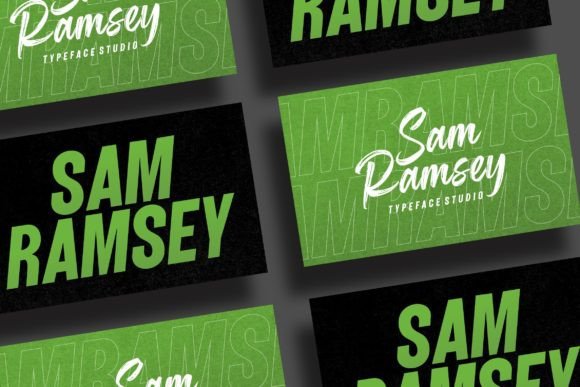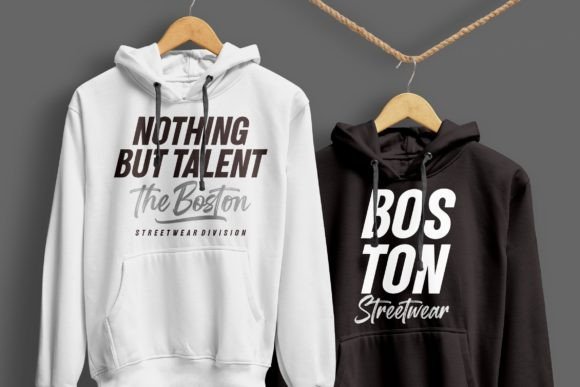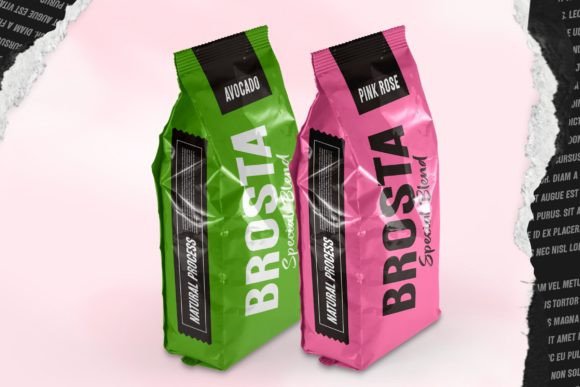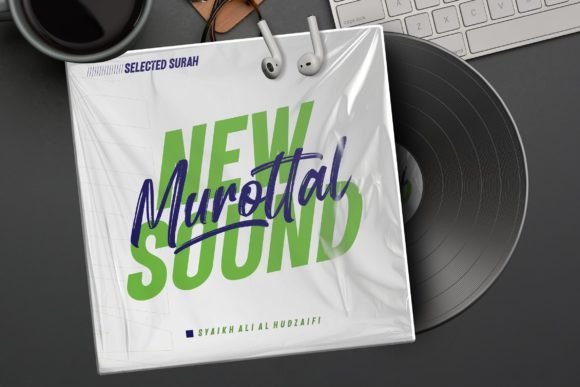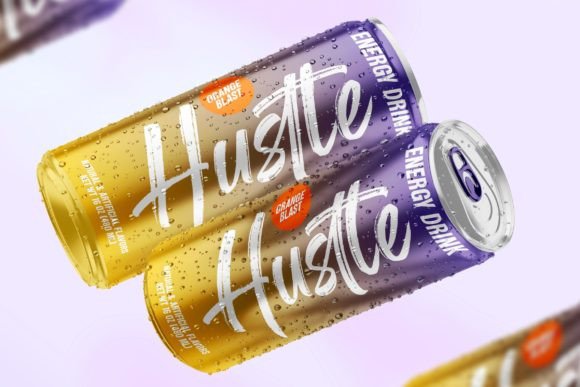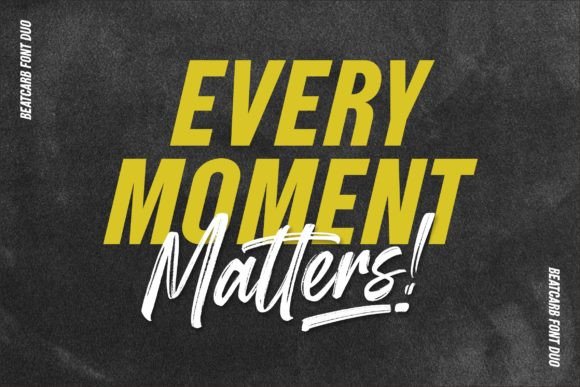
Introducing Beatcarb Font: The Ultimate Urban-Inspired Typeface
In the world of typography, a font can make all the difference in the success of a design project. With the rise of urban-inspired aesthetics and contemporary trends, designers are constantly on the lookout for typefaces that can add a touch of authenticity and style to their creations. This is where Beatcarb Font comes in – a handwriting brush effect and sans typeface that is poised to revolutionize the way you approach your next design project.
What is Beatcarb Font?
Beatcarb Font is a unique and versatile typeface that seamlessly blends the organic feel of handwriting with the modernity of sans-serif fonts. Its authentic, urban-inspired design makes it an ideal choice for designers and crafters looking to add a touch of edginess to their work. Whether you’re creating logos, branding materials, or social media graphics, Beatcarb Font offers a wide range of possibilities.
Key Features of Beatcarb Font
- Handwriting Brush Effect: Beatcarb Font boasts a beautiful handwriting brush effect that adds a personal touch to your designs. The font’s strokes are smooth and fluid, giving your text a natural, hand-crafted feel.
- Sans Typeface: The sans-serif aspect of Beatcarb Font makes it perfect for designs that require a clean and modern look. The font’s sans-serif lines are crisp and clear, ensuring that your text remains legible even at smaller sizes.
- Urban-Inspired Design: Beatcarb Font’s design is heavily influenced by contemporary trends and branding aesthetics. The font’s urban-inspired look makes it perfect for designers who want to create authentic and stylish designs.
- Versatile: Beatcarb Font is incredibly versatile and can be used for a wide range of applications, from logos and branding to social media graphics and packaging.
Use Cases for Beatcarb Font
Beatcarb Font is an incredibly versatile typeface that can be used for a variety of design projects. Here are some use cases where Beatcarb Font truly shines:
- Logos and Branding: Beatcarb Font’s unique blend of handwriting and sans-serif lines makes it perfect for logos and branding materials. The font’s urban-inspired design ensures that your brand stands out from the crowd.
- Photography: Beatcarb Font’s handwriting brush effect adds a personal touch to your photography projects. Use the font to create beautiful captions, watermarks, or even photo titles.
- Invitations: Beatcarb Font’s elegant and modern design makes it perfect for invitations, whether it’s for a wedding, birthday party, or corporate event.
- Watermarks: Add a touch of personality to your watermarks with Beatcarb Font. The font’s handwriting brush effect ensures that your watermarks stand out without overpowering your images.
- Ads and Product Designs: Beatcarb Font’s urban-inspired design makes it perfect for ads and product designs. Use the font to create eye-catching headlines, product labels, or packaging designs.
- Stationery and Wedding Themes: Beatcarb Font’s elegant and modern design makes it perfect for stationery and wedding themes. Use the font to create beautiful letterheads, wedding invitations, or ceremony programs.
- Labels and Packaging: Beatcarb Font’s handwriting brush effect adds a personal touch to your labels and packaging designs. Use the font to create unique and eye-catching labels that stand out on store shelves.
Why Choose Beatcarb Font?
With so many fonts available, why should you choose Beatcarb Font for your next design project? Here are a few reasons why Beatcarb Font stands out from the crowd:
- Unique Design: Beatcarb Font’s unique blend of handwriting and sans-serif lines makes it a standout typeface that adds a touch of personality to your designs.
- Versatility: Beatcarb Font is incredibly versatile and can be used for a wide range of applications, from logos and branding to social media graphics and packaging.
- Authentic Urban-Inspired Design: Beatcarb Font’s urban-inspired design ensures that your designs look authentic and stylish, perfect for designers who want to create modern and trendy designs.
In conclusion, Beatcarb Font is a game-changing typeface that offers a unique blend of handwriting and sans-serif lines. Its authentic, urban-inspired design makes it perfect for designers and crafters looking to add a touch of style and personality to their designs. With its versatility and wide range of use cases, Beatcarb Font is sure to become a staple in any designer’s font library.